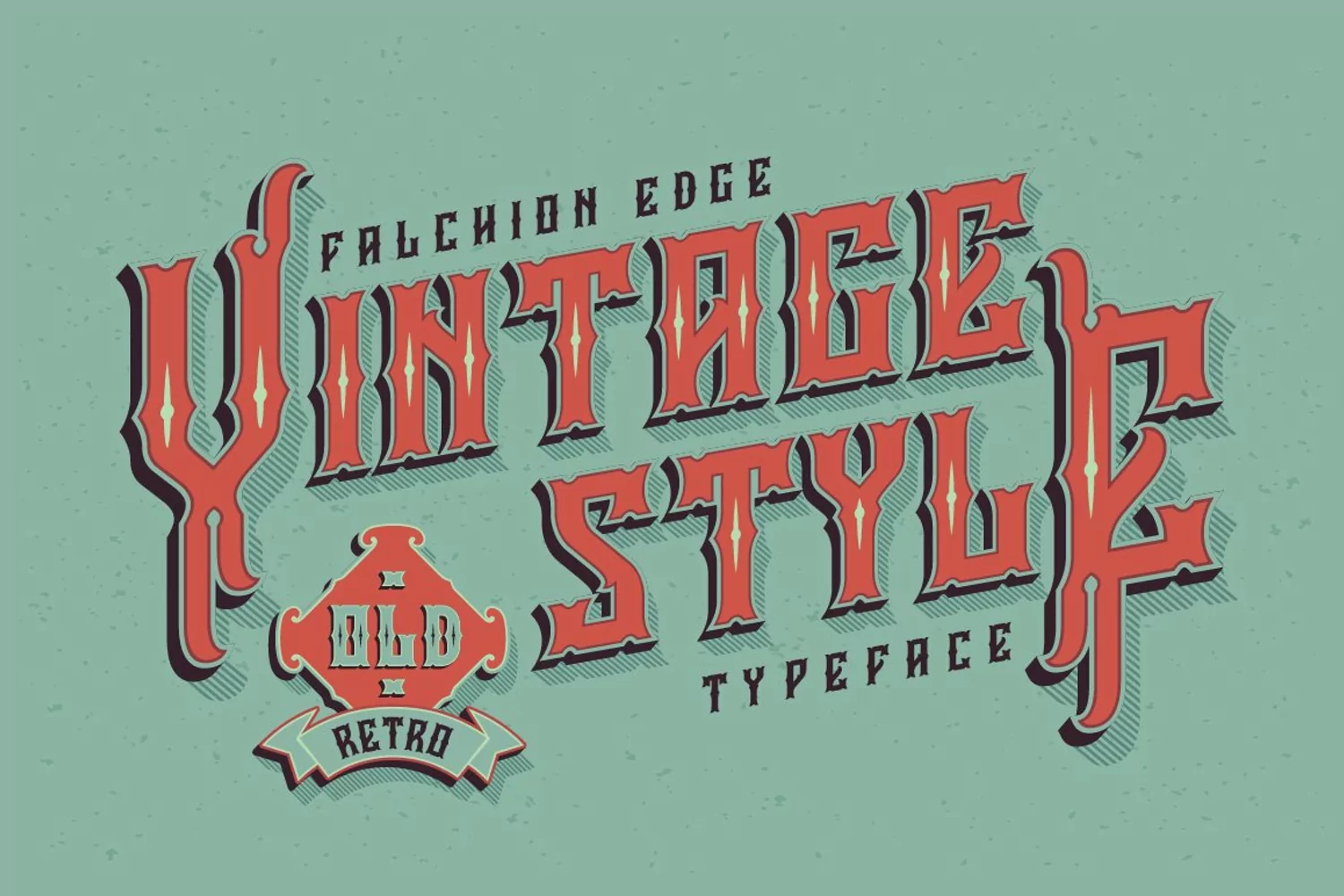
Falchion Edge font
Hi! Presenting another one vintage style typeface "Falchion Edge". It has lots of details and consists of different font layers. Also it includes a file with merged layers into one font.